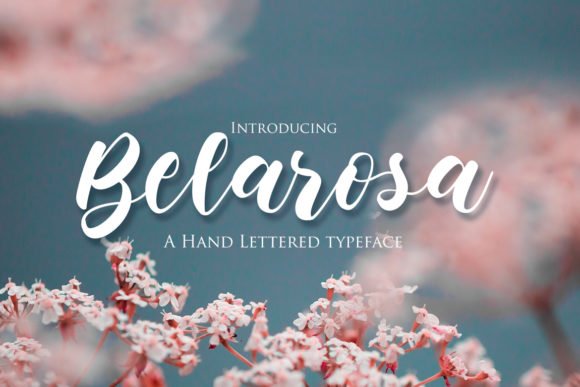
Unleash Your Creativity with the Belarosa Font
There’s nothing quite like the thrill of starting a new design project, is there? You’ve got a blank slate, a vision in your mind, and a sense of endless possibility. The possibilities are endless, but the perfect font can make all the difference. And that’s where the Belarosa Font comes in – a beautiful and chic script font that’s sure to elevate your designs to new heights.
Belarosa Font is designed to add a touch of whimsy and joy to your creations. With its cute and playful style, it’s the perfect choice for designers looking to add a little personality to their work. Whether you’re creating a wedding invitation, a social media graphic, or a marketing brochure, the Belarosa Font is sure to bring a smile to your face and a touch of sophistication to your design.
Belarosa Font Key Features
- Font Family: Belarosa
- Unique Characteristic: Elegant script style with subtle flair and refined curves, suitable for formal and luxury branding
Belarosa Font Review
Overall, I think Belarosa Font is a nice, elegant addition to any design project. ✨ The unique blend of classic and modern elements gives it a distinct personality that can add a touch of sophistication to your work.
The font has a wide range of applications, from body text to headlines, and the varying weights and styles make it easy to use in different contexts. ✨ The subtle flair at the end of the strokes adds a nice flair to the text, making it stand out without being too overpowering.
While Belarosa Font has many strengths, it also has some limitations. ⚠️ One of the main issues is the limited language support, which may be a problem for designers who work with languages that aren’t supported. ⚠️ Additionally, the font may not be suitable for small text sizes, as the fine details can become difficult to read.
Recommendation
- Use Belarosa Font for body text or headlines where you want to add a touch of elegance.
- Avoid using Belarosa Font for small text sizes or in languages that aren’t supported.
- Combine Belarosa Font with other fonts to create a unique and interesting typography.
Belarosa Font is a solid choice for designers who want to add a touch of sophistication to their work. While it has some limitations, the unique style and wide range of applications make it a worthwhile addition to any design project.
Getting the Most Out of Belarosa Font
For the best results, use Belarosa Font in conjunction with a high-quality image or background.
Experiment with different font sizes, colors, and styles to achieve the desired effect.
Belarosa Font is ideal for:
1. Headings and titles.
2. Body text in creative projects.
3. Branding and marketing materials.
Alternatives to Belarosa Font
Montserrat is a modern sans-serif font that is highly legible and versatile. It’s ideal for use in digital products, such as websites and mobile apps, as well as in print materials like business cards and brochures.
Compared to Belarosa Font, Montserrat is more geometric and has a more industrial feel, making it suitable for tech and startup brands. While Belarosa Font has a more elegant and sophisticated look, Montserrat is more modern and edgy.
Open Sans is a clean and friendly sans-serif font that is highly legible across various screen sizes and devices. It’s a great choice for use in digital products, such as websites, mobile apps, and e-books.
Compared to Belarosa Font, Open Sans is more neutral and doesn’t have the same level of elegance and sophistication. However, it’s more versatile and can be used in a wider range of contexts, making it a great choice for projects where you need a clean and simple font.
Lato is a elegant sans-serif font that is highly legible and versatile. It’s ideal for use in digital products, such as websites and mobile apps, as well as in print materials like business cards and brochures.
Compared to Belarosa Font, Lato has a more elegant and sophisticated look, making it suitable for luxury and high-end brands. While Belarosa Font has a more modern and edgy feel, Lato is more refined and polished.